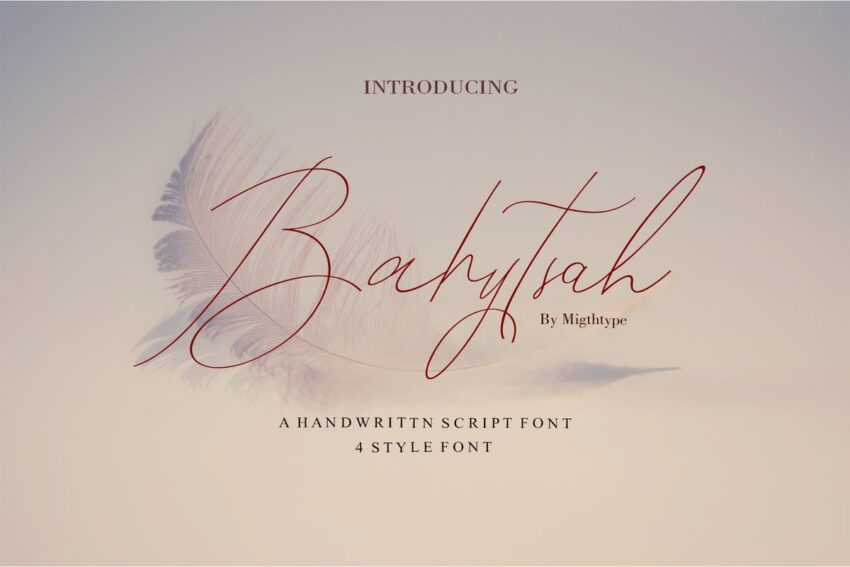
Introduction to Bahytsah Font
Bahytsah is a modern calligraphy script font, fully immersed in current style trends.
This handwritten font is perfect for a large number of projects with tons of glyphs and style variations .
Key Features of Bahytsah Font